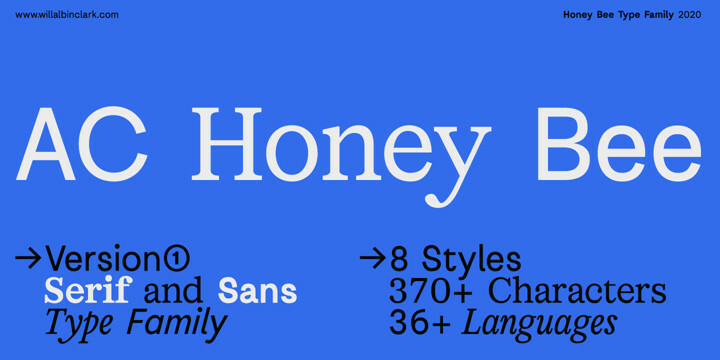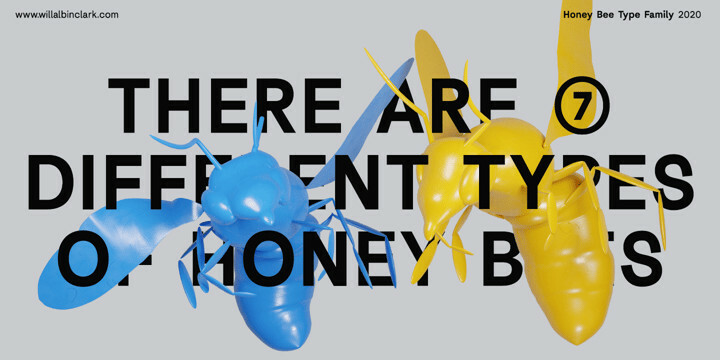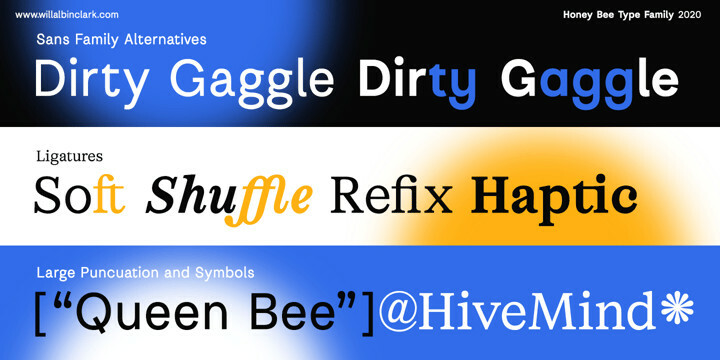
AC Honey Bee Font Family
AC Honey Bee Font FamilyHoney Bee is a type family developed over the course of 2020. Consisting of two sub-families that share the same DNA of two opposing styles.
Honey Bee Serif is a transitional modern serif with some reference to fundamental letterforms. Honey Bee Sans is a low contrast semi-geometric sans serif with bold rounded letterforms.
These typefaces were made in unison, designed for perfect font pairing for a variety of projects and intensions. It’s design is ideal for small and large scale, with the distinct characters of the Sans family and funky headlines or titles with the stylistic Serif Italic. Super legible and a variety of characters allow for multi-lingual use.